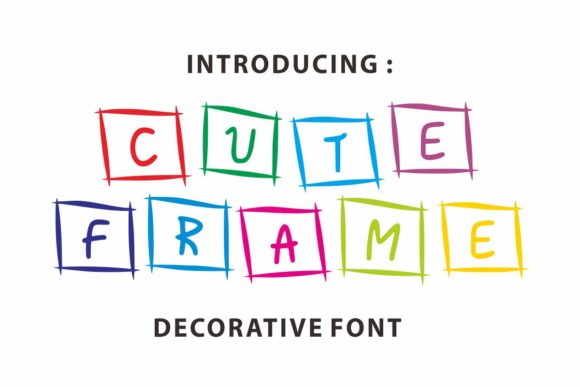
Journey into the world of typography and discover the enchanting charm of Cute Frame Font, a decorative masterpiece crafted by Infinity art Studio. This font family captivates with its playful spirit, transforming ordinary words into captivating expressions.
Ornate frames embrace each letter, like tiny windows into a world of imagination. It's a font that exudes happiness and exuberance, perfect for adding a pop of personality to your designs.
Picture your promotional materials adorned with Cute Frame Font, their messages leaping off the page with an infectious energy. Envision price tags that dance with whimsy, inviting customers to explore your products with a smile.
Create party invitations that ignite anticipation, promising an event filled with laughter and joy. Design banners that ripple with excitement, beckoning friends and family to gather and celebrate.
Whether you're a seasoned designer or just starting out, Cute Frame Font is your creative companion. Its versatility knows no bounds, bringing a touch of youthful charm to any project.
Indulge in the endless possibilities of Cute Frame Font and transform your designs into captivating experiences. Let your creativity soar and immerse yourself in the boundless joy that this font family brings.